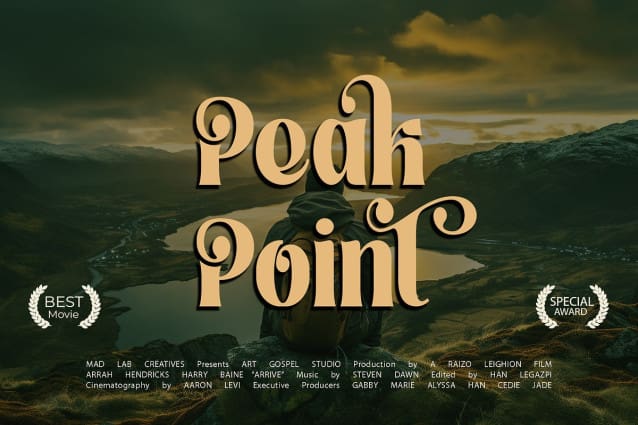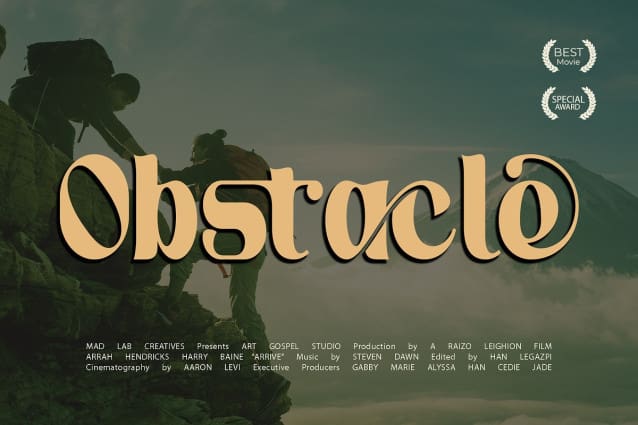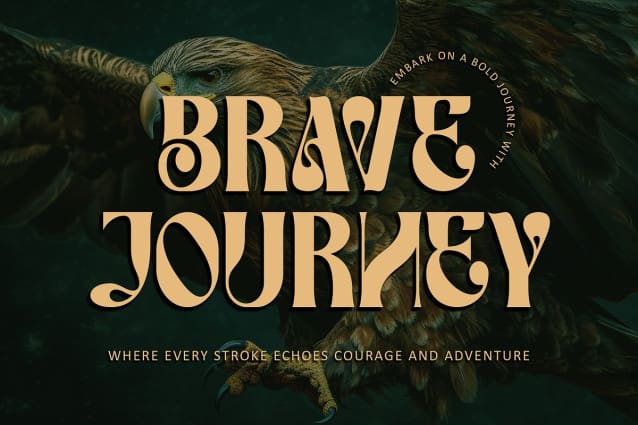
Brave Journey Font
Brave Journey Font, a captivating serif font that seamlessly fuses bold elegance with distinctive character forms. Tailored for a variety of design projects, from adventurous product packaging to dynamic branding, this font’s PUA encoding ensures effortless access to an array of unique glyphs and swashes. Brace yourself for exceptional outcomes as you infuse your creative endeavors with the daring spirit of “Brave Journey.”